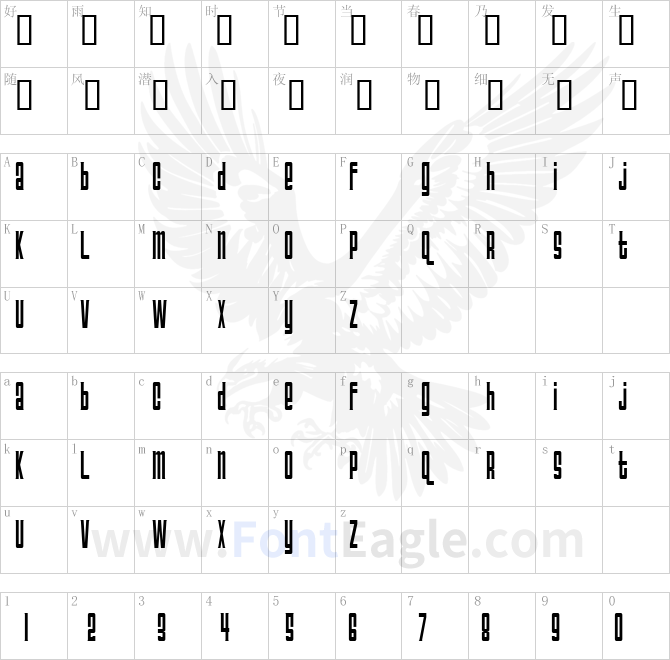
- Font name:TriacSeventyone
TriacSeventyone is a great font, widely used in graphic design, single-page menu design, poster design and other fields, and is deeply loved by designers.TriacSeventyone download.